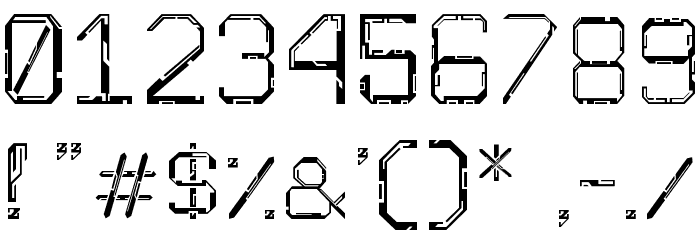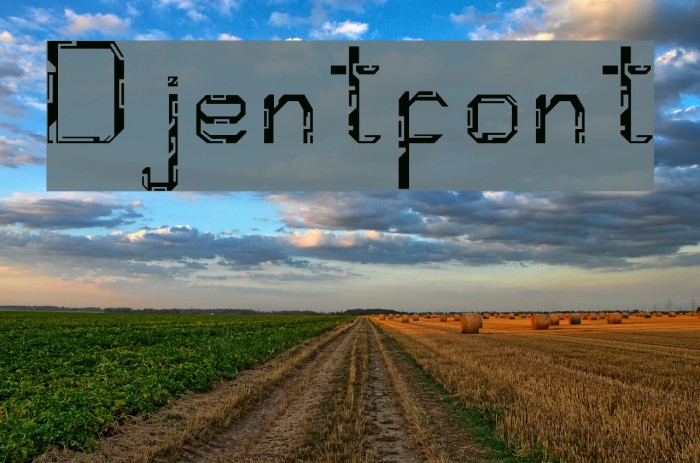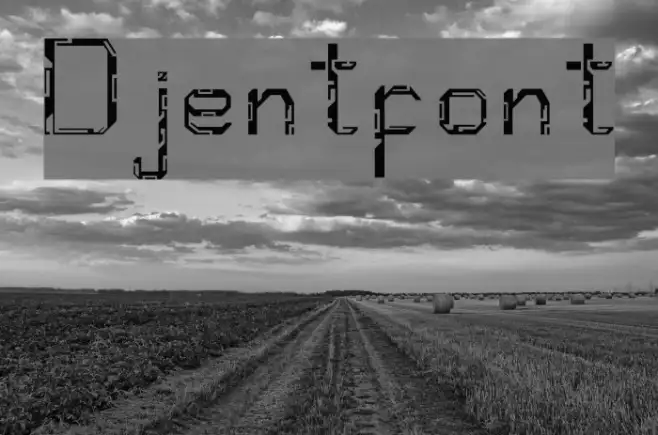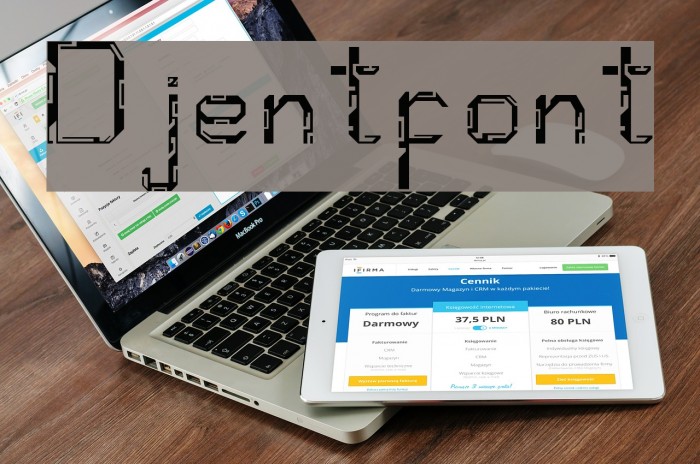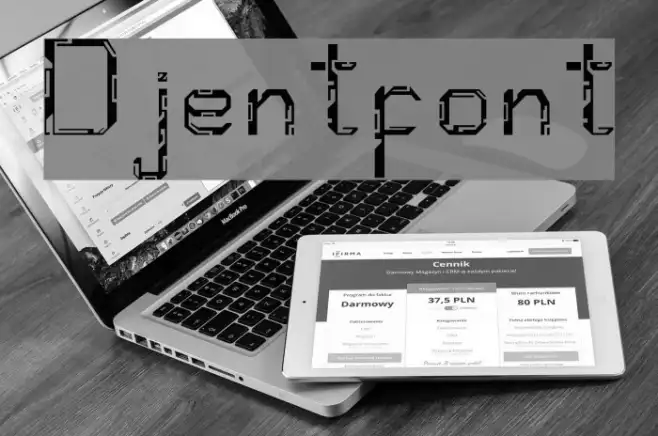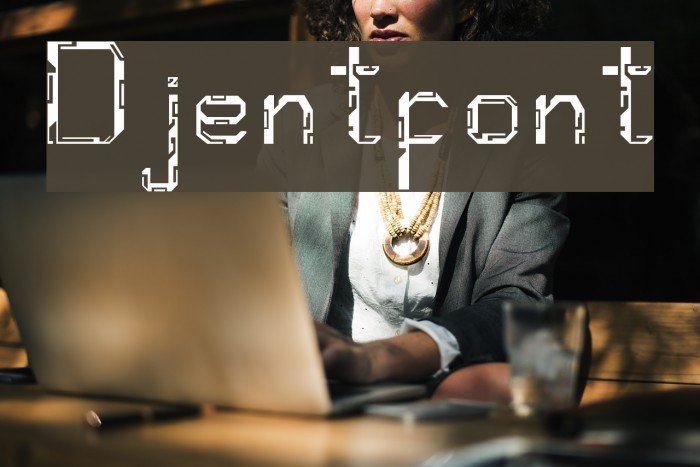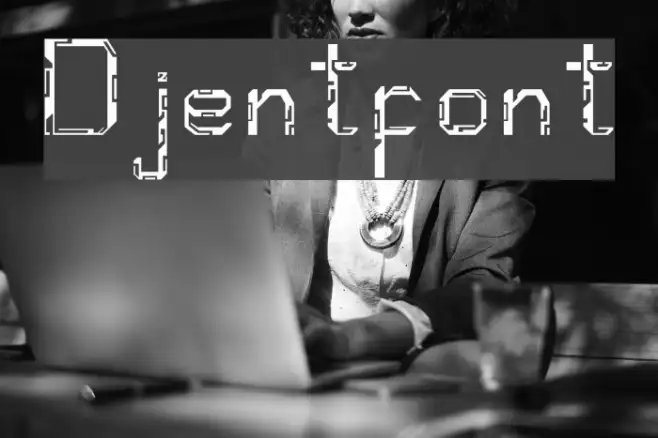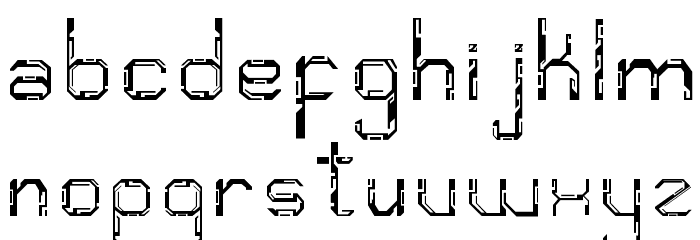
Djentfont Font
This font features a unique, modern design with a mechanical and industrial feel. The characters are constructed with a combination of solid lines and intricate cut-out patterns, giving them a futuristic and edgy appearance. The uppercase and lowercase letters maintain a consistent style, with angular shapes and sharp edges. The numerals and special characters follow the same design principles, ensuring a cohesive look across all elements. This font is ideal for projects that require a bold and distinctive visual impact, such as branding for tech companies or futuristic-themed designs.
A modern, industrial font with angular shapes and intricate cut-out patterns.